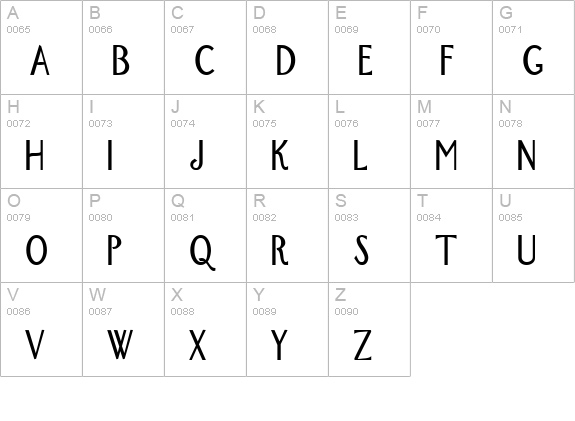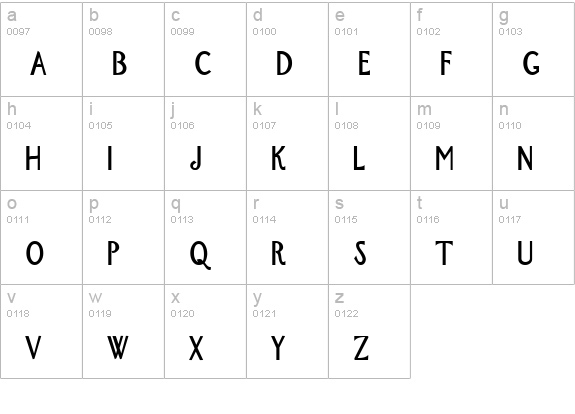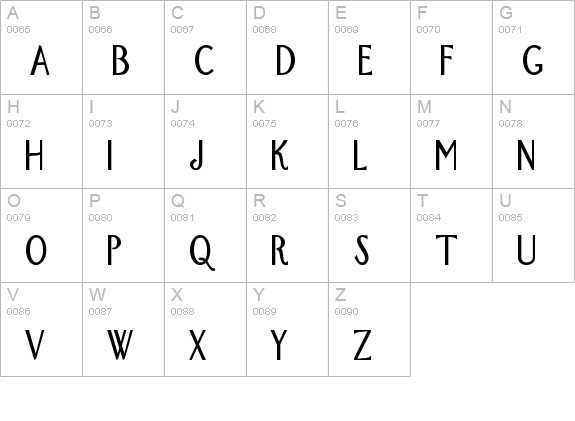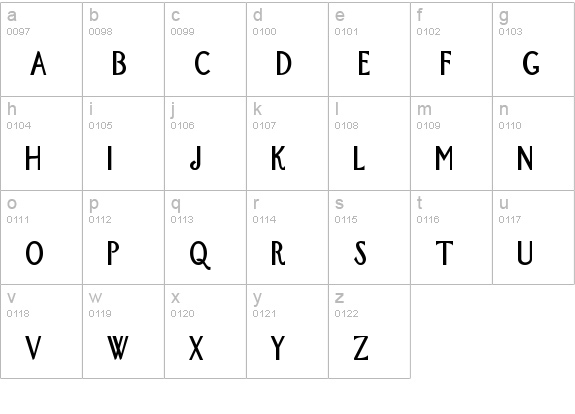
New York-Condensed Bold is a strong, high-contrast, condensed-width variant in the New typeface family \xE2\x80\x94 well suited to headlines, attention-grabbing titles, and strong calls-to-action.
New York-Condensed Bold font is a sleek and modern typeface that exudes confidence and strength. With its bold and condensed design, this font is perfect for making a statement in headlines, titles, and logos. The sharp edges and clean lines of New York-Condensed Bold give it a contemporary and professional look that will make your designs stand out. What's even better is that New York-Condensed Bold font is available for free download at FontsMarket.com. This means that you can easily access this high-quality font without any cost, making it a great choice for designers, businesses, and individuals looking to add a touch of sophistication to their projects. Download New York-Condensed Bold font today and elevate your designs with its bold and impactful style.